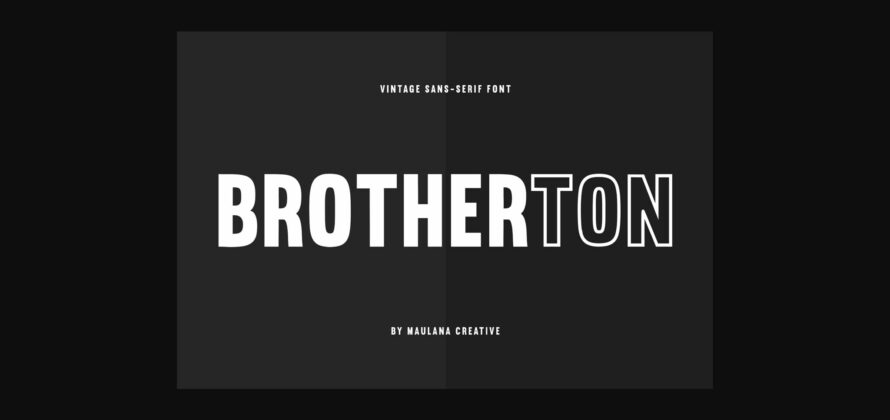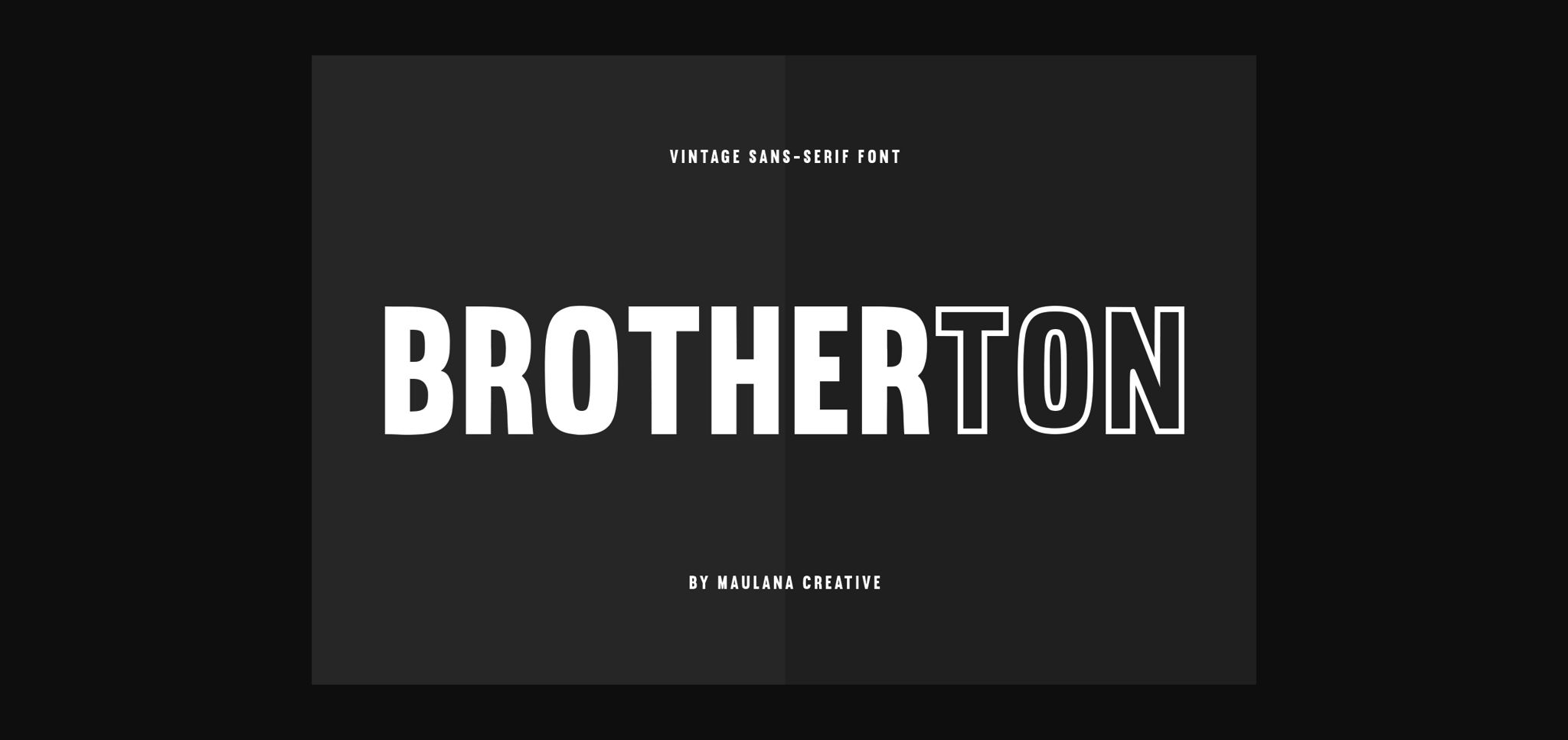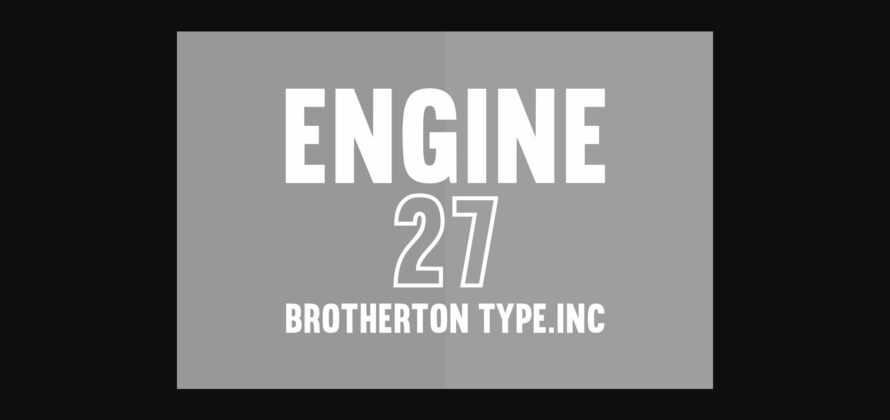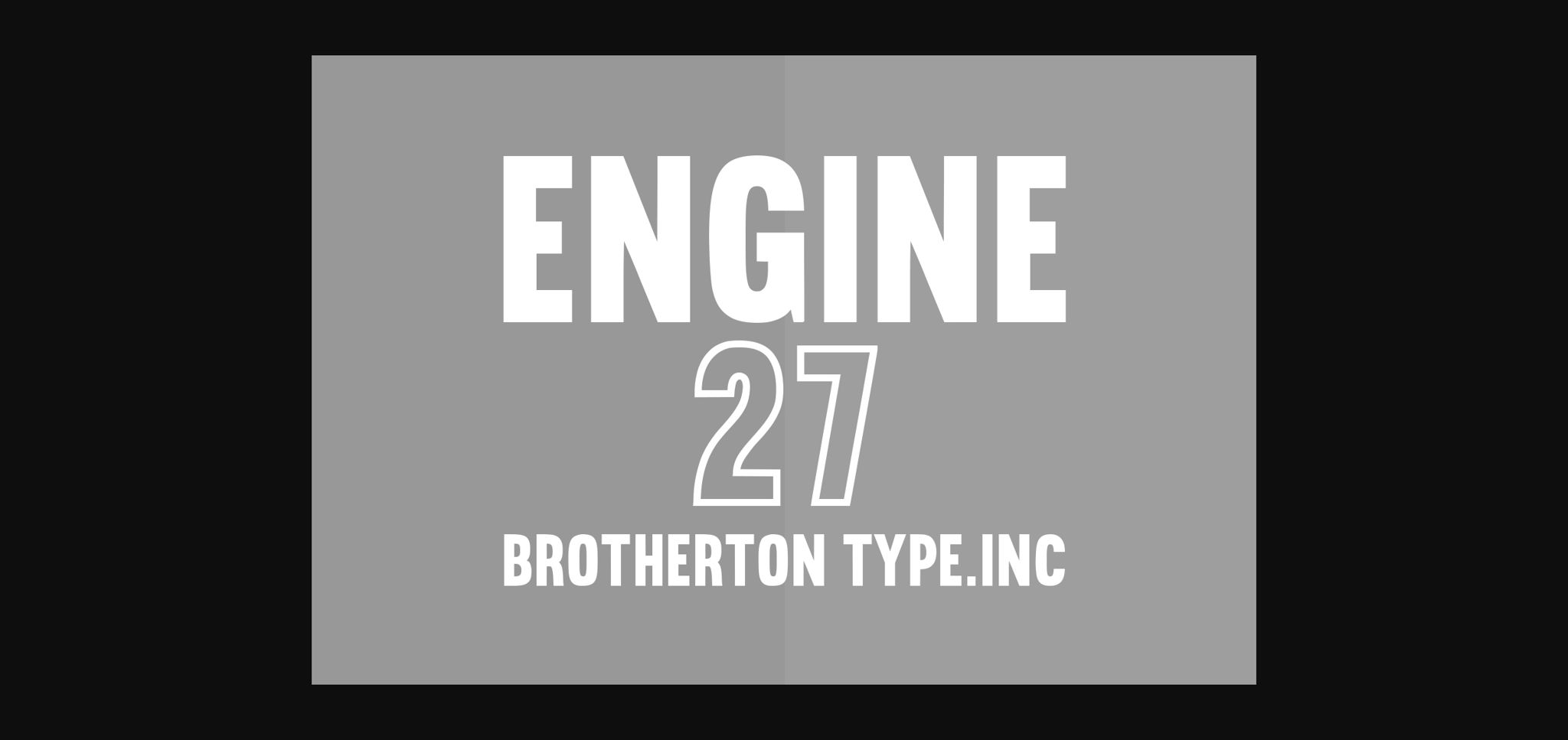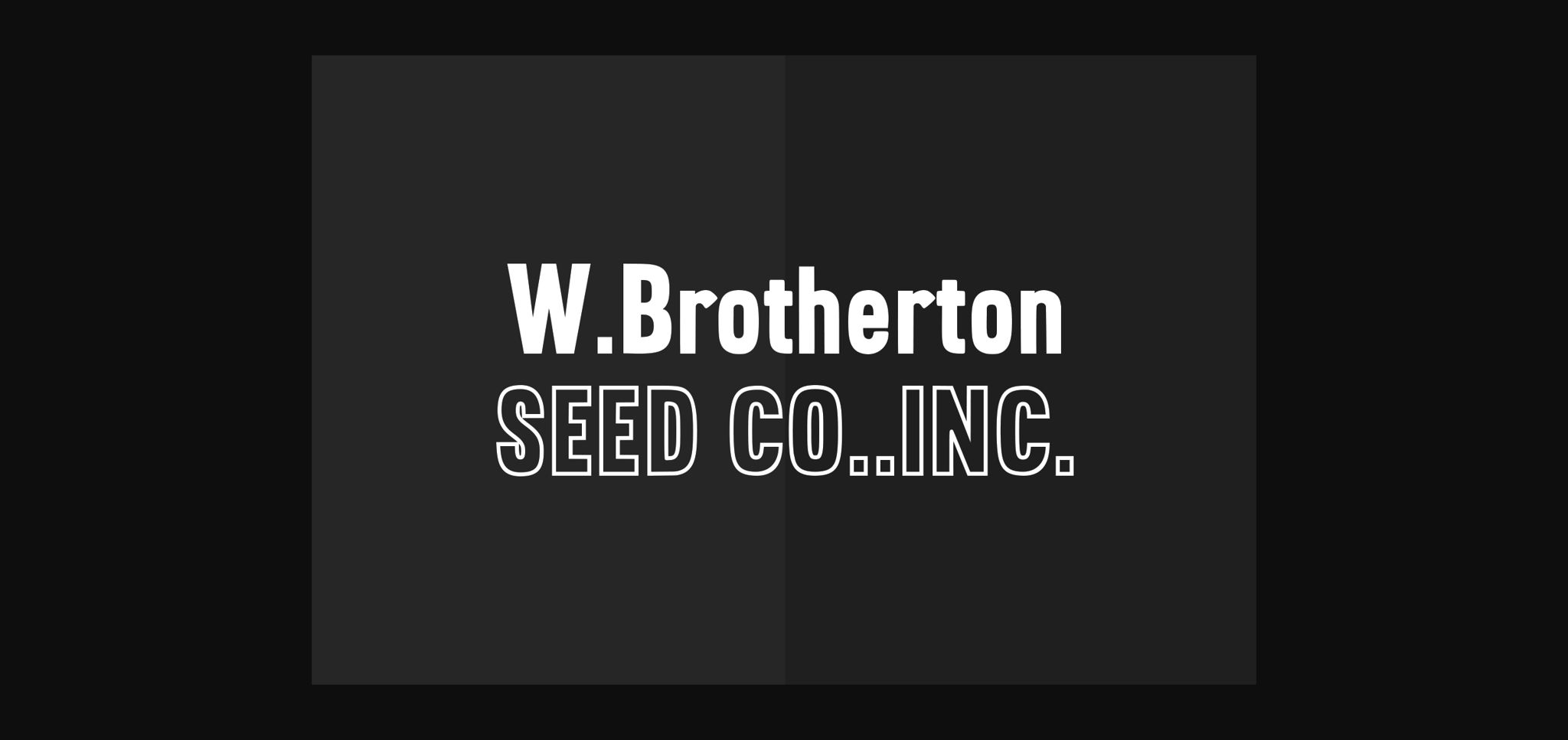
About Brotherton Font
Brotherton is a bold and simple lettered sans serif font. It can easily be matched to an incredibly large set of projects, so add it to your creative ideas and notice how it makes them stand out!